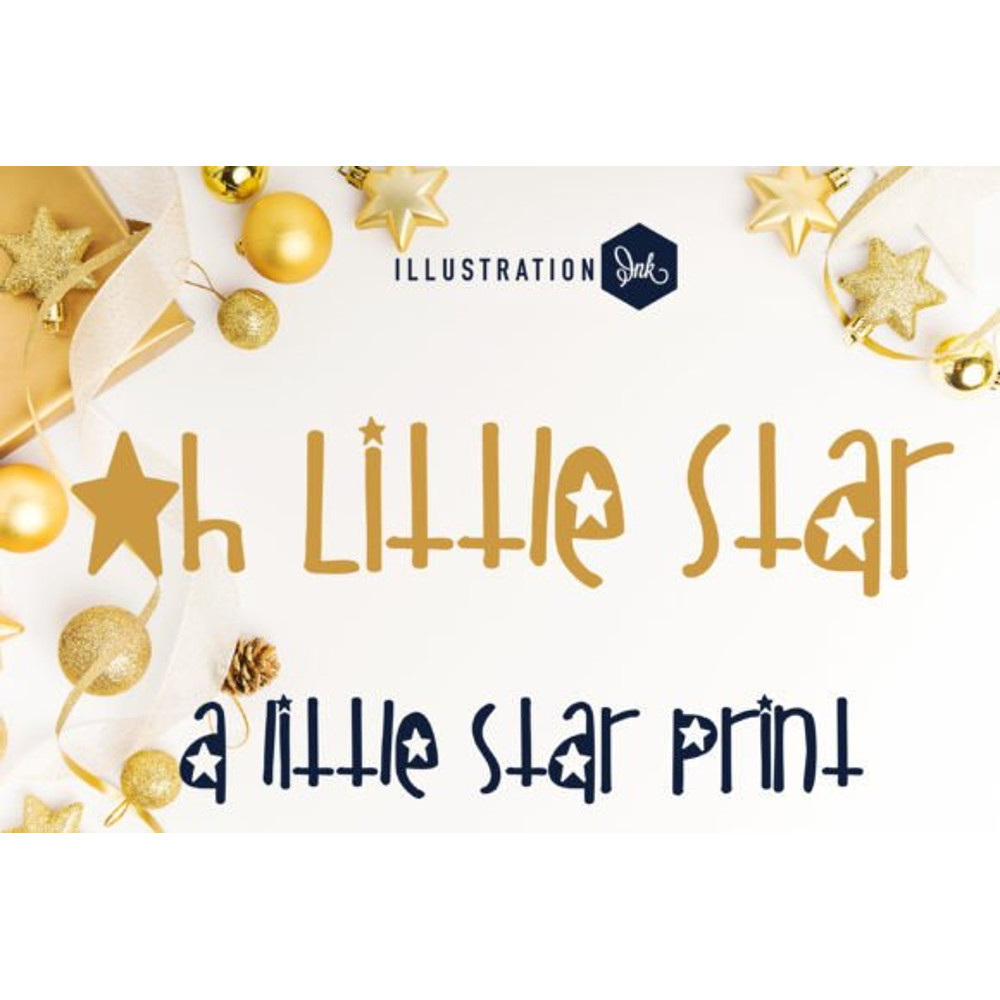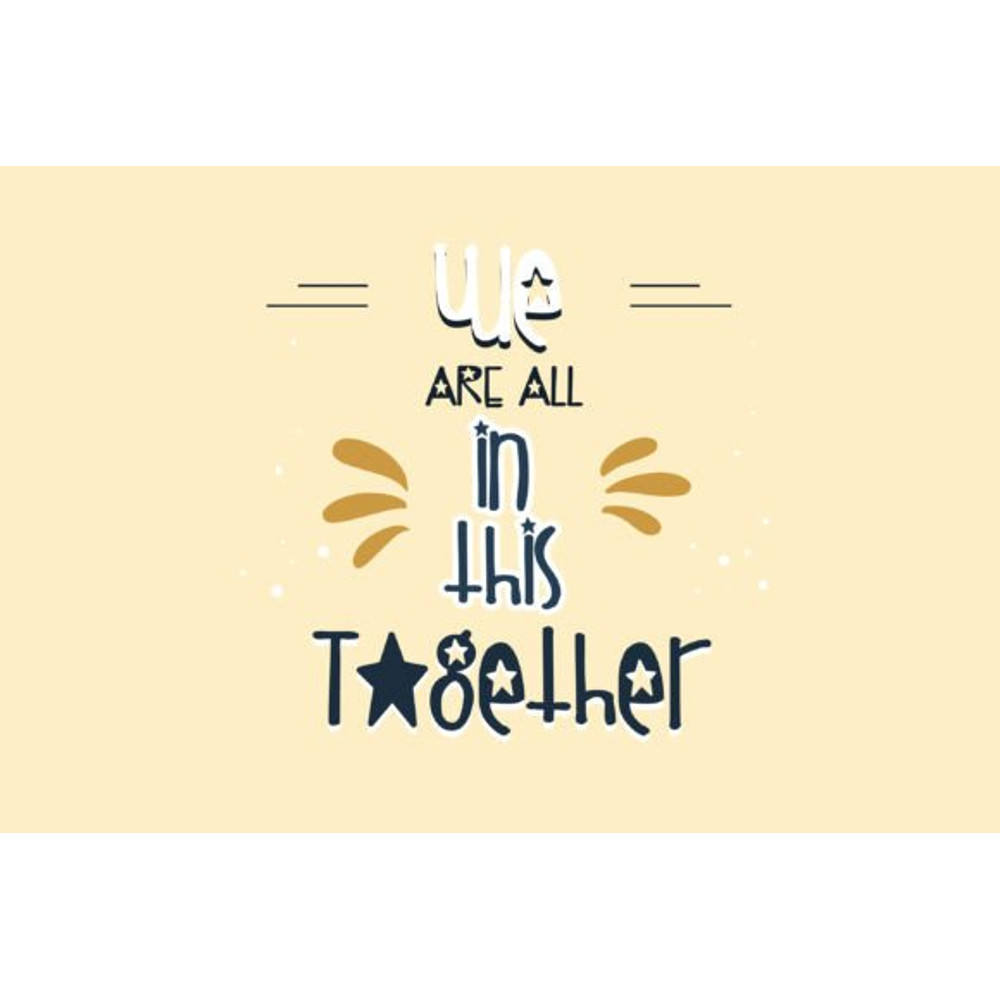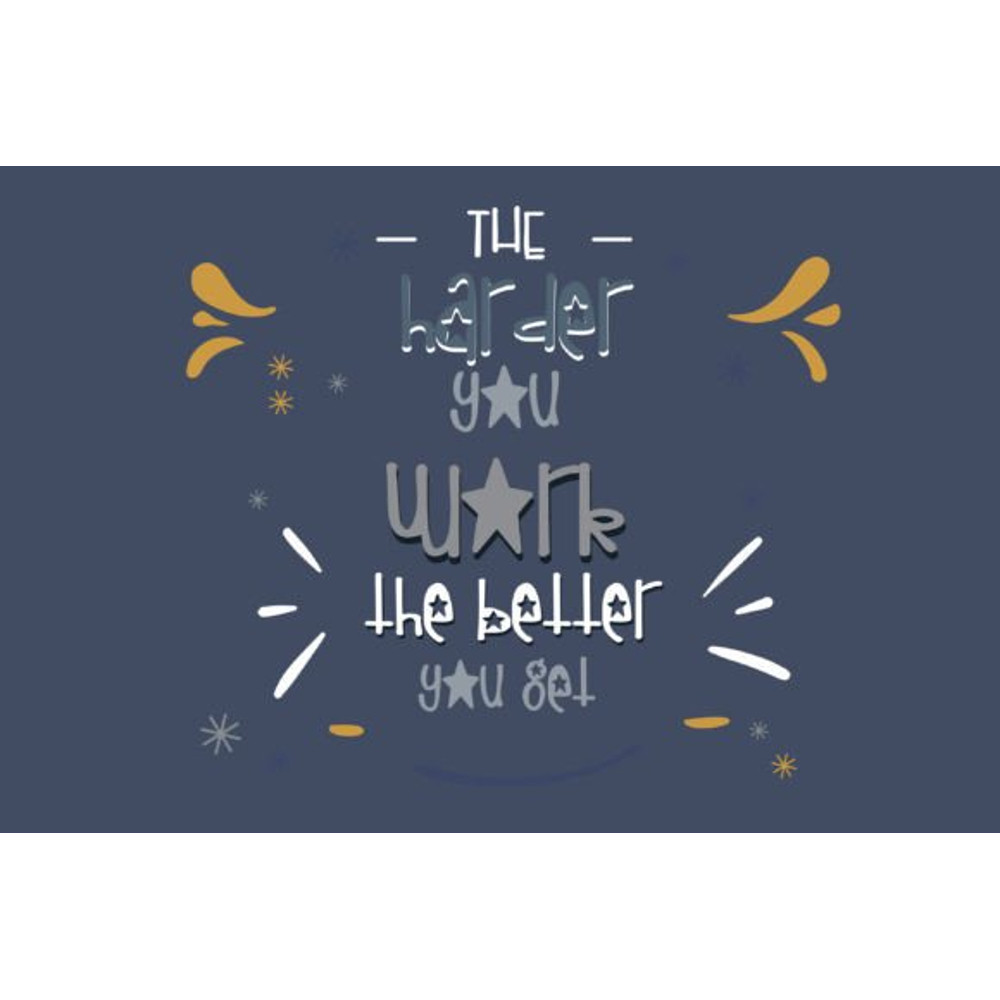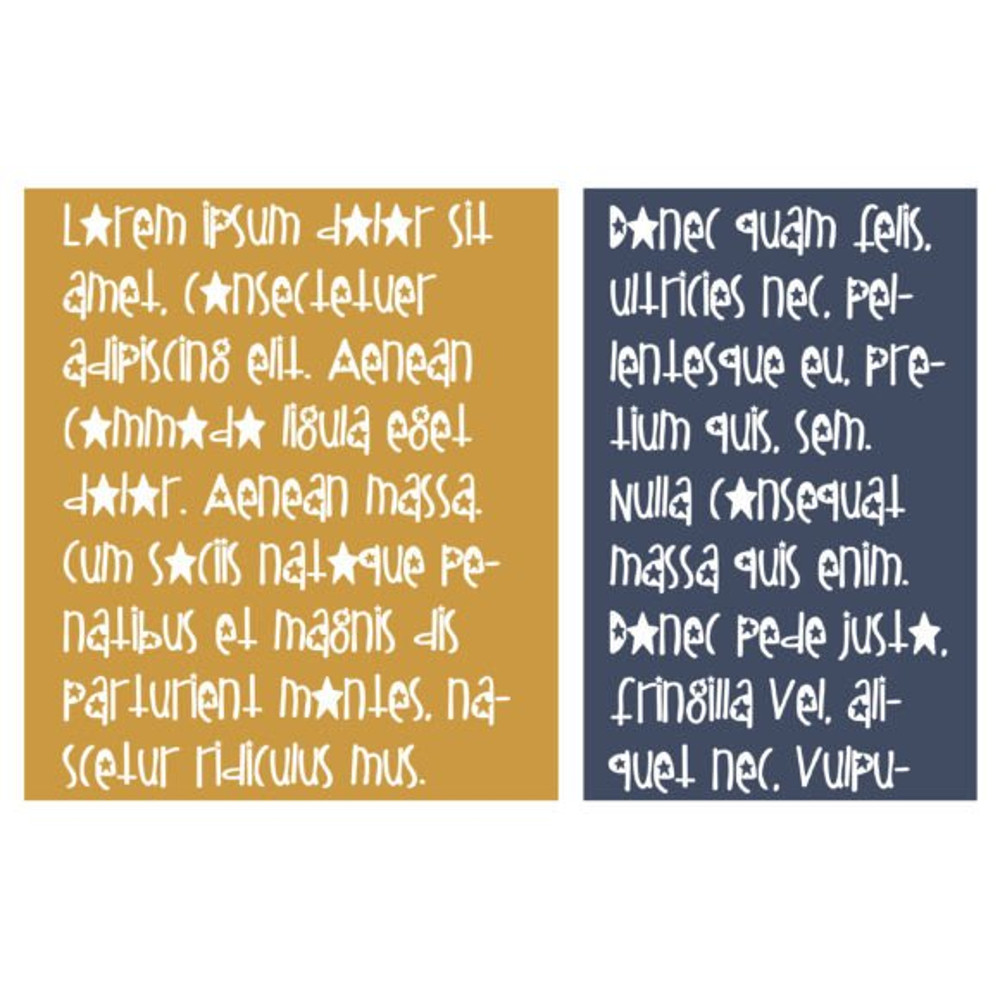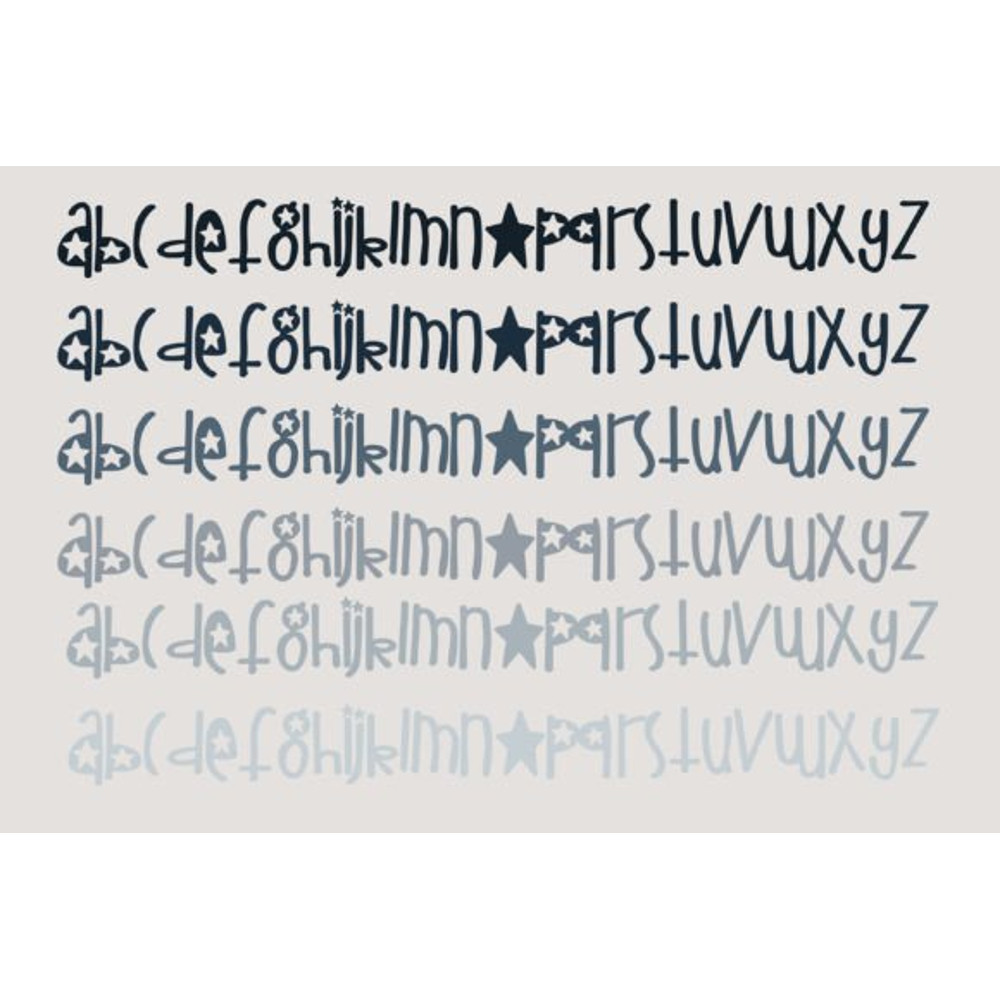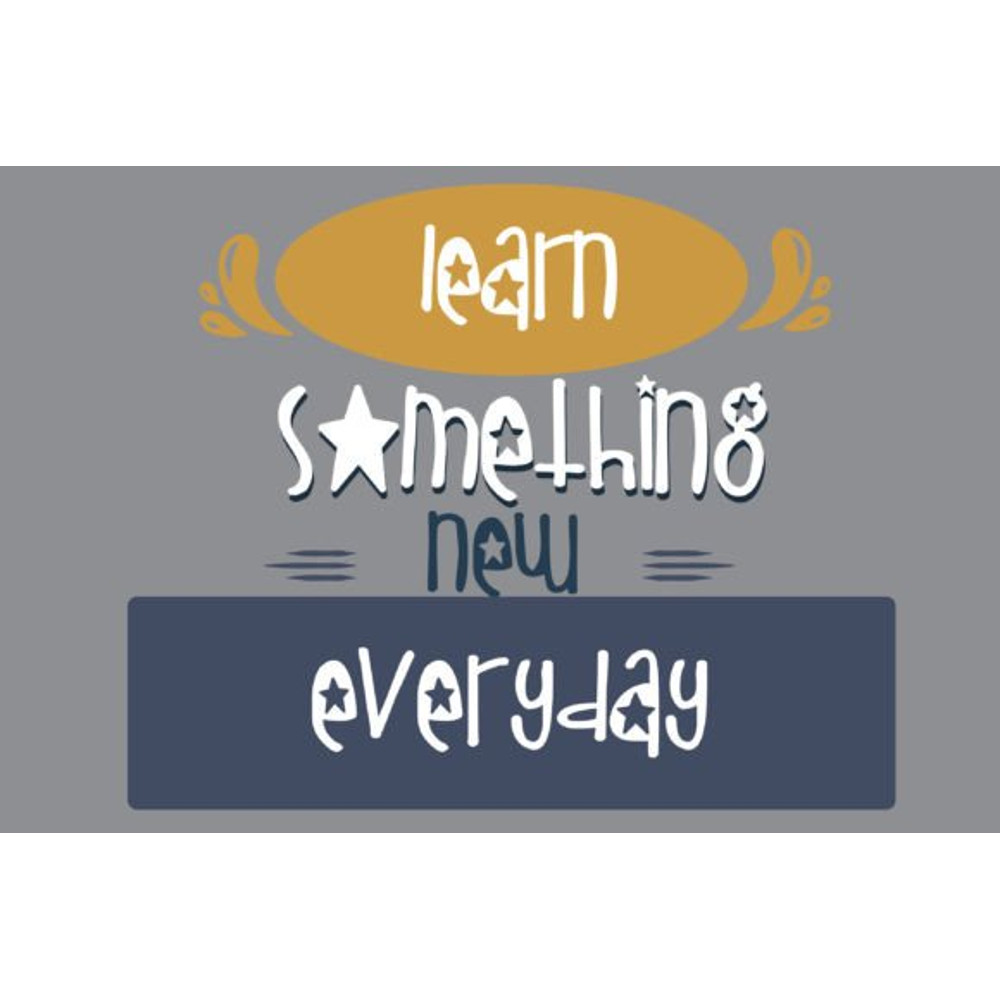
Oh Little Star Font
This hand-crafted sans serif font features a crafty print with stars.
A hand-crafted font is a font that is designed to look like it was written by hand. It is often used for invitations, greeting cards, and other items. Handwritten fonts can be either formal or informal, and they can be used for a variety of purposes.
Handwritten fonts can be a great way to add a casual touch to your designs. They can also be used to create a sense of nostalgia or whimsy. However, it is important to choose a handwritten font that is appropriate for the project you are working on. A formal handwritten font may not be appropriate for a casual invitation, while an informal handwritten font may not be appropriate for a corporate document.